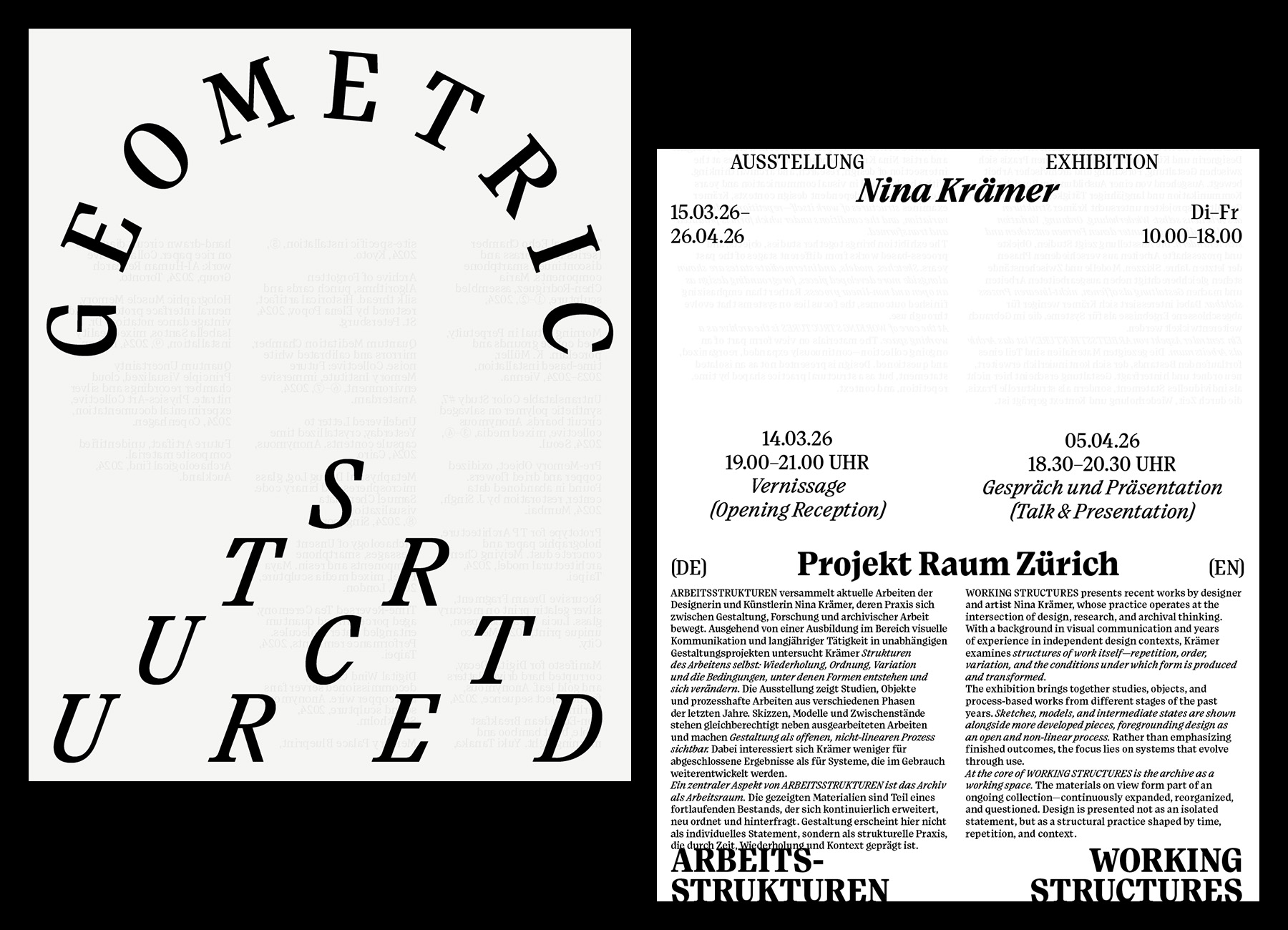
Paragraf is a serif typeface with slightly narrow proportions, a high-waisted structure, and a tall x-height, creating an elegant yet practical tone. Its clean, straight lines and sharp cuts lend a clear, rational personality, making it well-suited for editorial use. The design emphasizes geometric simplicity, with rectangular and parallelogram shapes evident in details like the terminals of ‘r’ and the tails of ‘y.’ The bottom serifs on characters such as ‘a,’ ‘d,’ and ‘u’ reflect this geometric approach. Strokes like the tail of ‘Q,’ the legs of ‘R,’ ‘K,’ and ‘k,’ and the ear of ‘g’ are rendered with crisp, structured forms. Horizontally and vertically cut terminals on thin strokes, seen in ‘c,’ ‘e,’ and ‘t,’ add a sharp, confident finish. The 90-degree bracketed serifs, with their smooth curves connecting to the main strokes, balance modern precision with a touch of classic elegance.